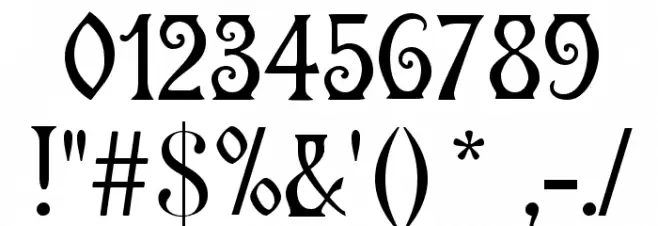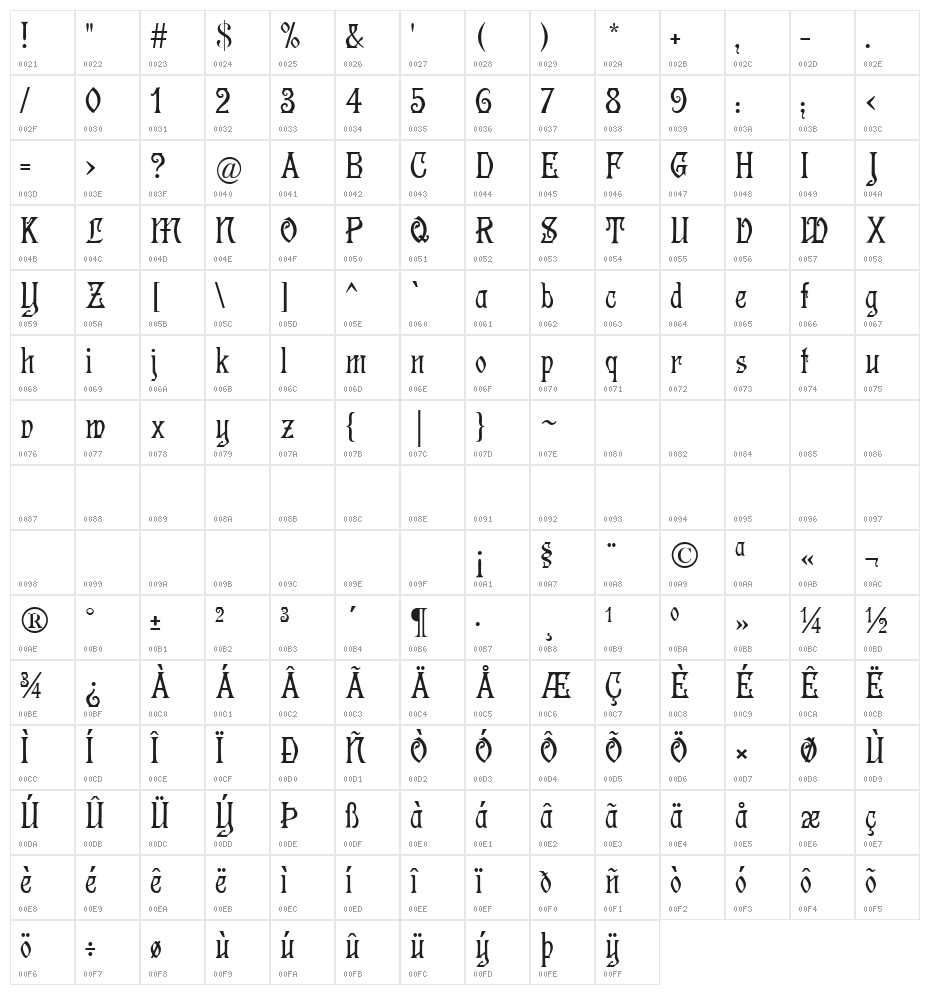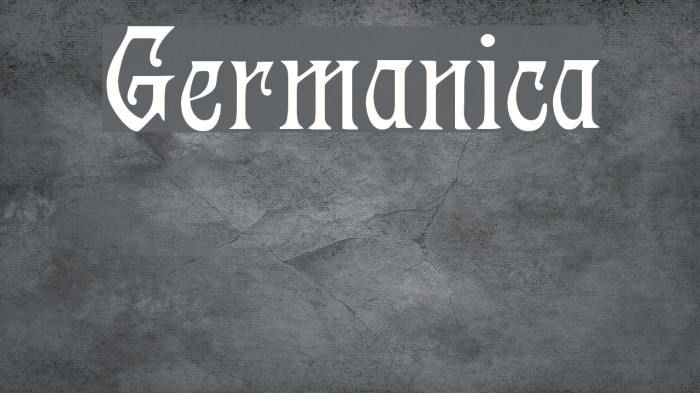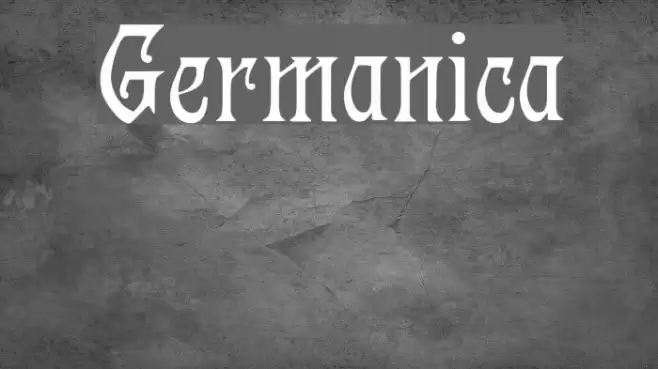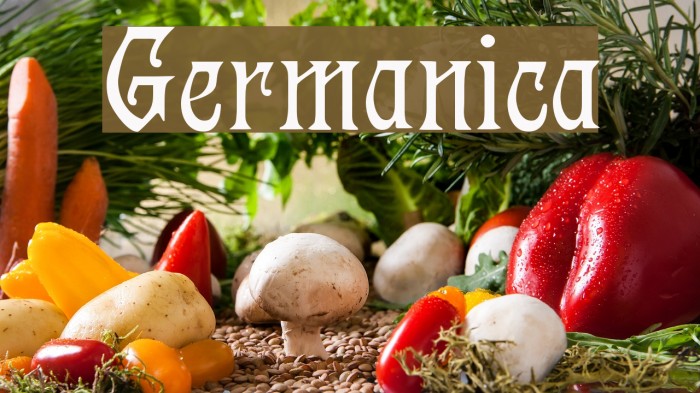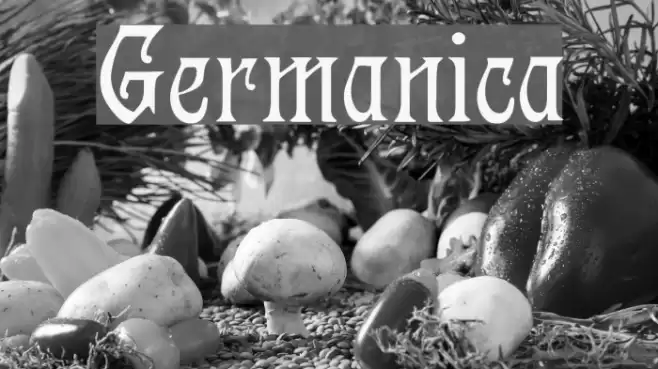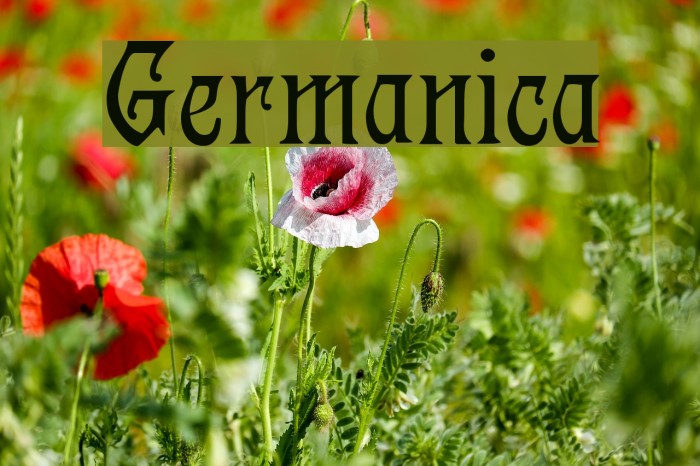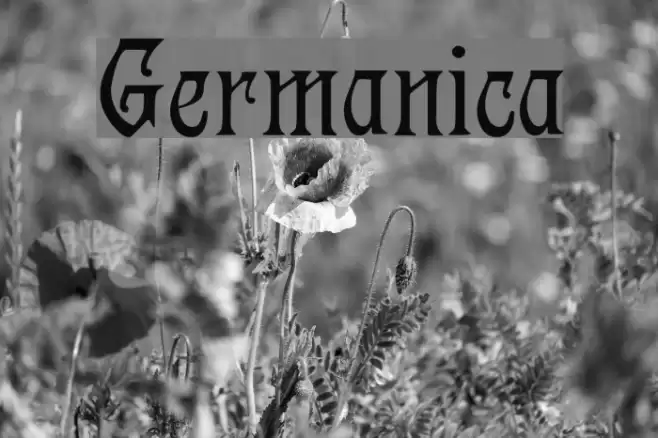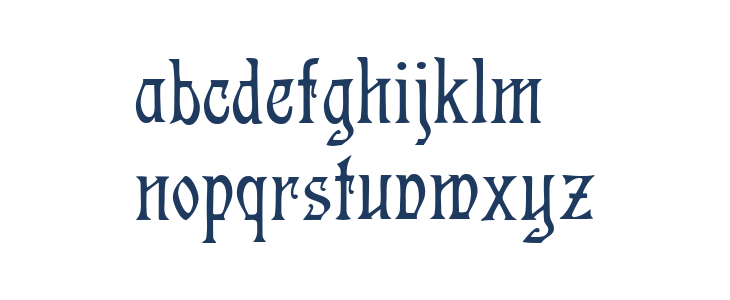
Germanica Font
Germanica Description
This font exhibits a classic Blackletter style, characterized by its intricate and ornate design. The uppercase letters are bold and angular, with sharp serifs and decorative elements that give them a medieval appearance. The lowercase letters maintain the same intricate detailing, with a slightly more condensed form. The numerals are equally stylized, featuring curves and flourishes that align with the overall aesthetic. Special characters are designed with similar attention to detail, ensuring consistency across the entire typeface. The font's historical and traditional look makes it suitable for projects that require a touch of elegance and antiquity.
| Proposed Projects | Ideal for historical documents, invitations, certificates, branding for luxury products, or any project requiring a vintage or medieval theme. |